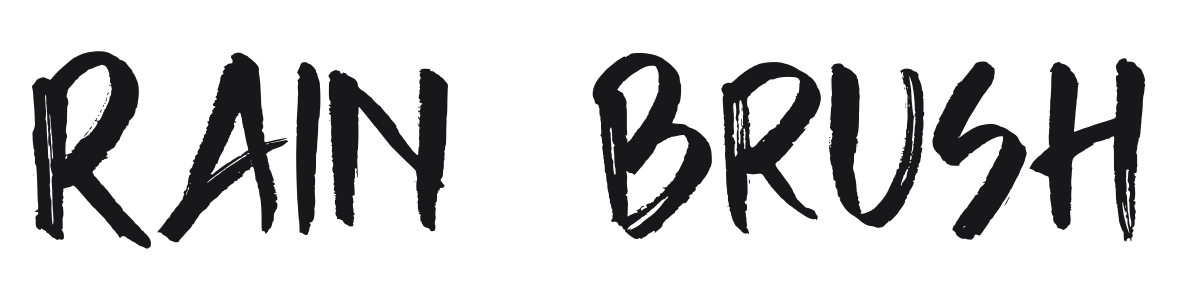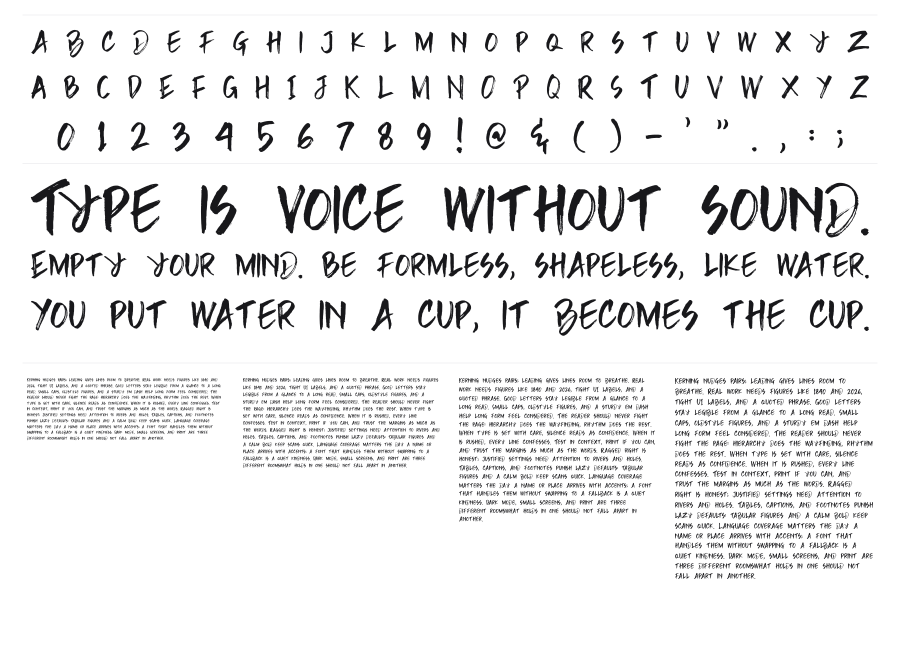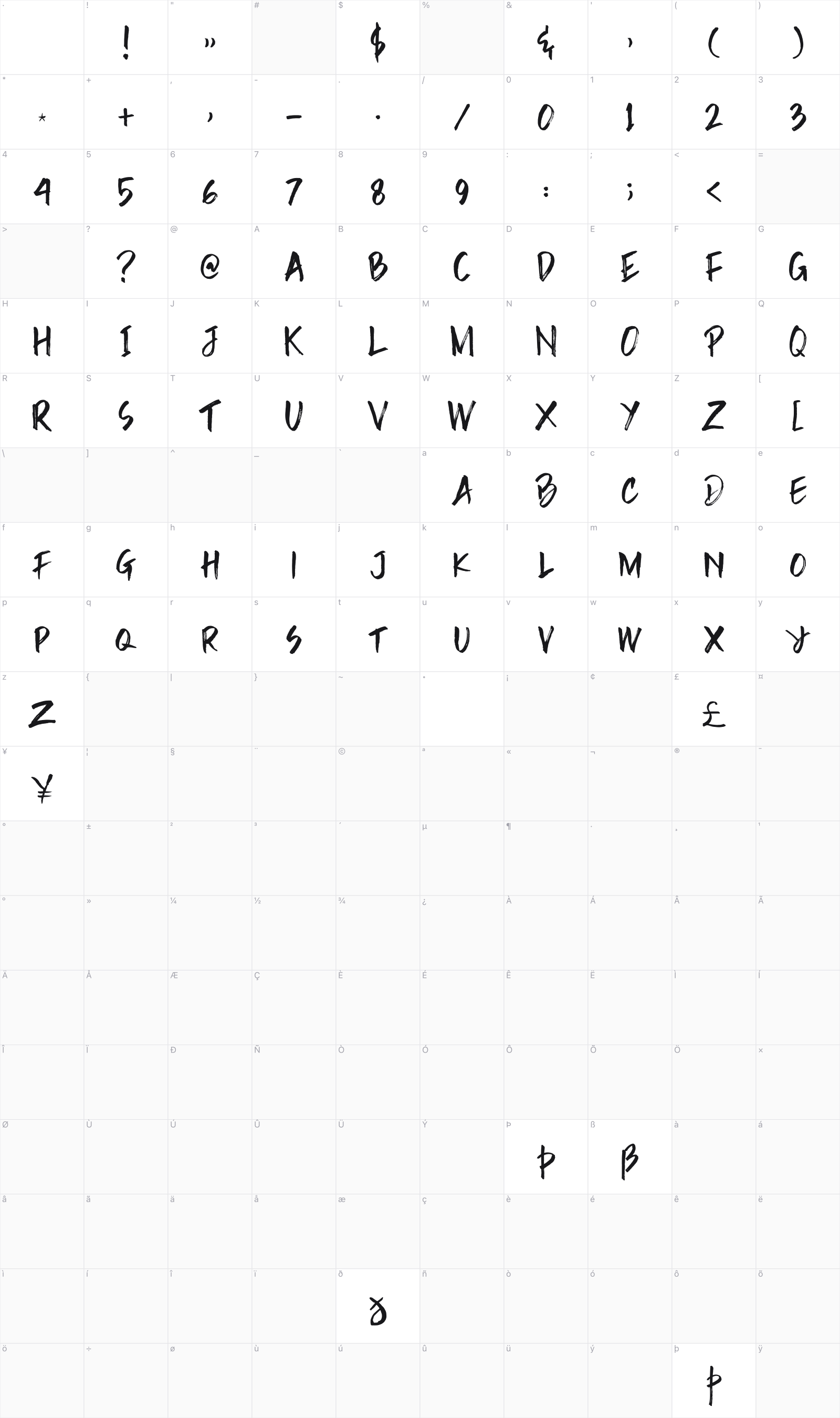
Rain Brush
Rain Brush is a bold, textured brush script with the raw energy of hand-painted lettering. Rough bristle marks and high stroke contrast give it an authentic ink-on-surface quality that feels immediate and physical. It hits hard on apparel graphics, posters, and any project that needs attitude.